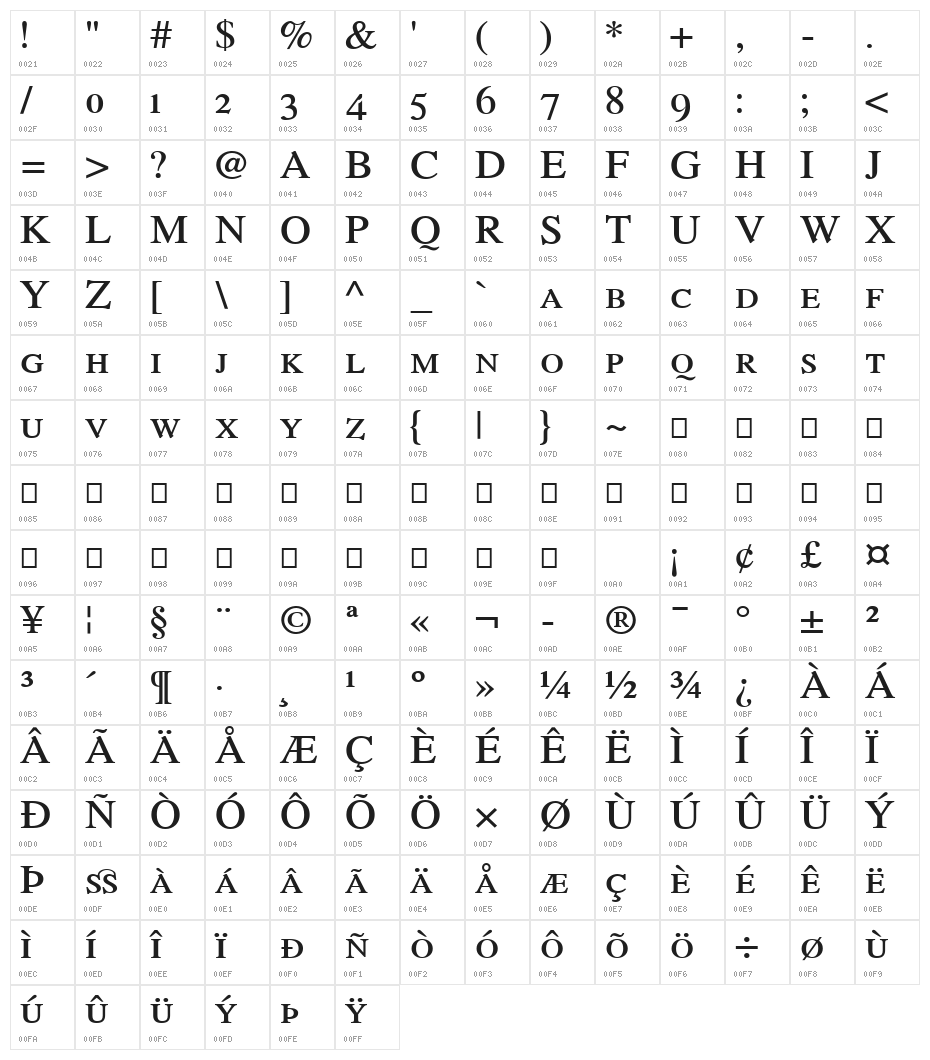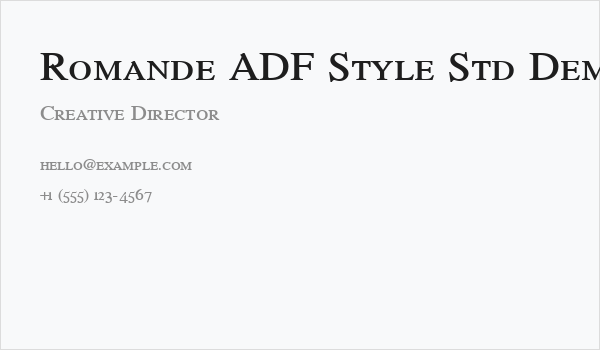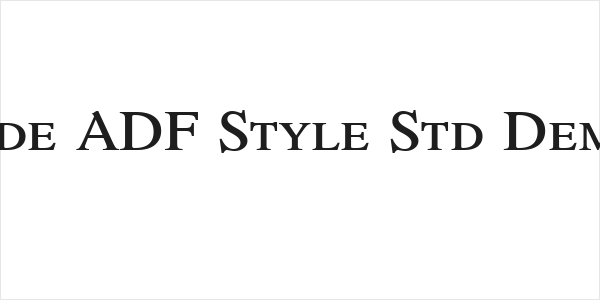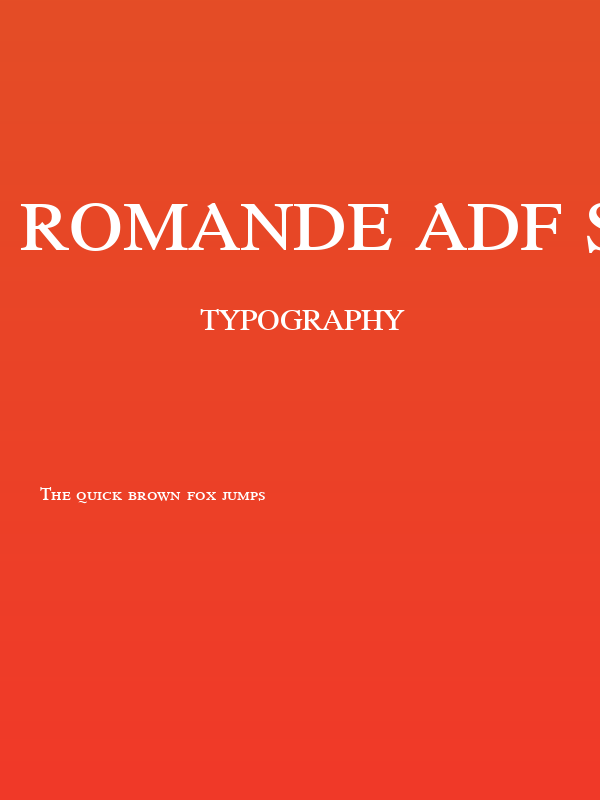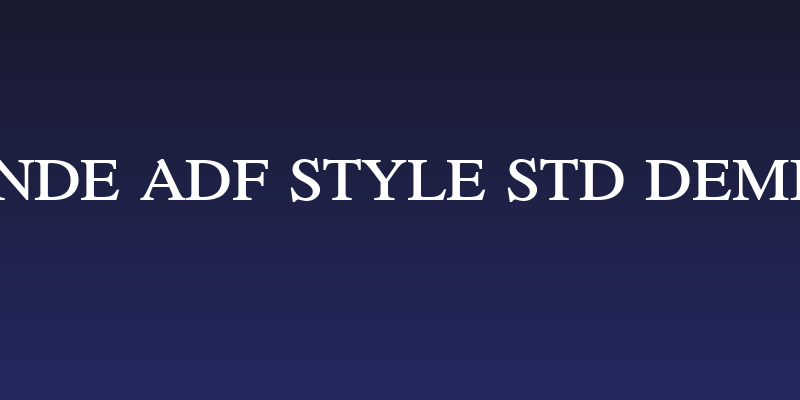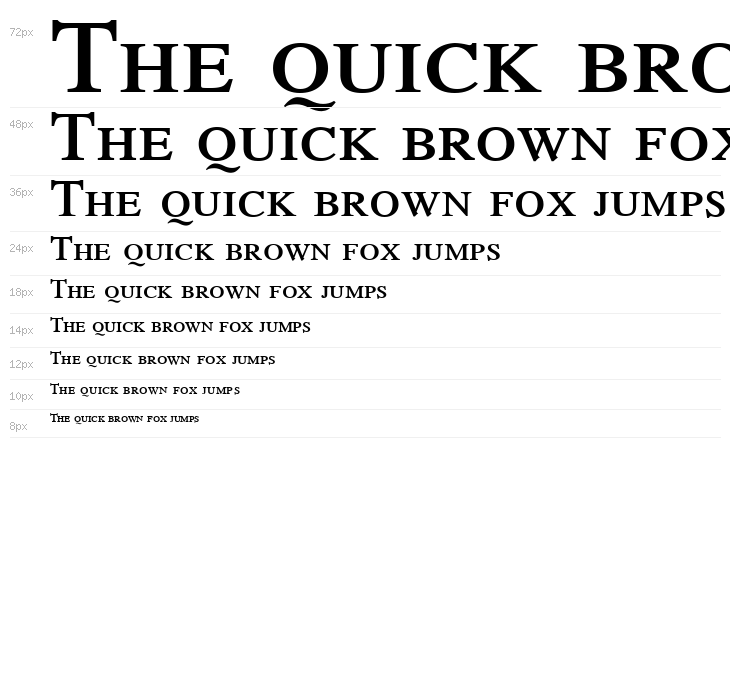
Romande ADF Style Std Demi Bold Font
Romande ADF Style Std Demi Bold Description
This font exhibits a classic serif style with a strong and authoritative presence. The uppercase letters are bold and well-defined, featuring traditional serifs that add a touch of elegance and formality. The lowercase letters maintain a consistent style, with a slightly more rounded appearance that complements the uppercase. Numbers are clear and legible, with a uniform thickness that ensures readability. Special characters are distinct and harmonize well with the overall design, making them suitable for various applications. The font's balanced proportions and moderate contrast in stroke thickness contribute to its versatility, making it suitable for both print and digital media.
| Proposed Projects | Ideal for book covers, formal invitations, branding materials, and editorial design. |